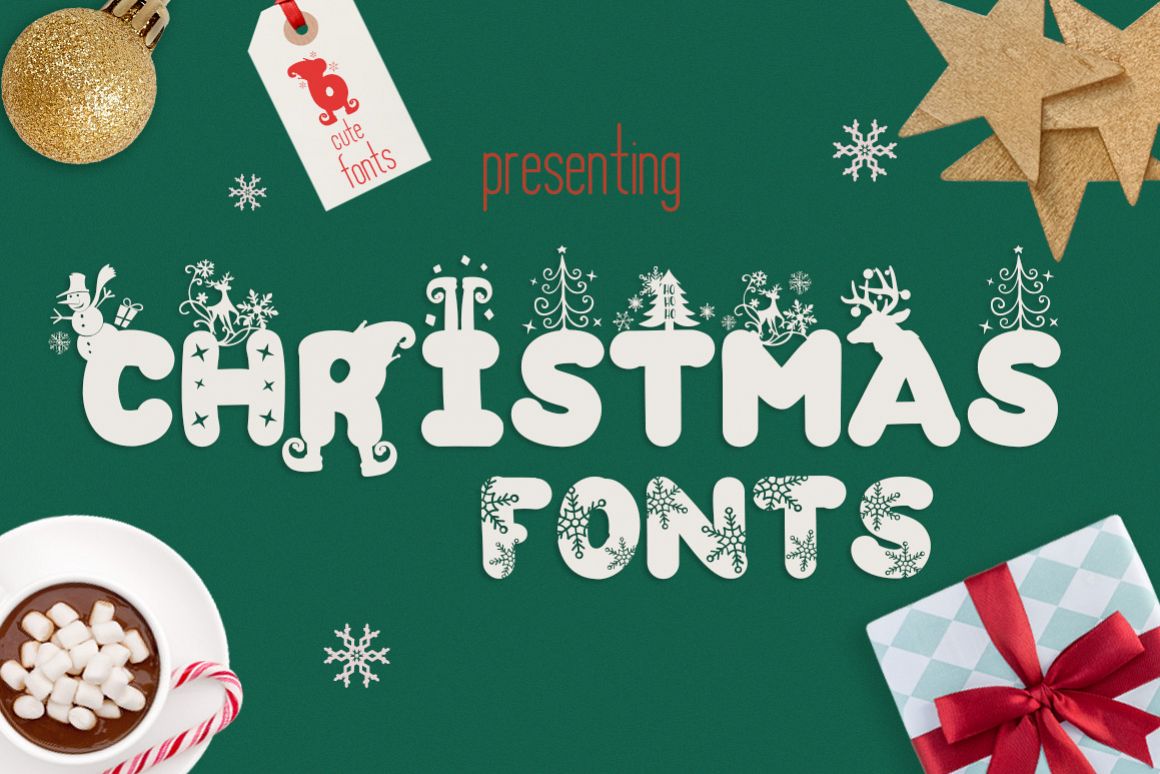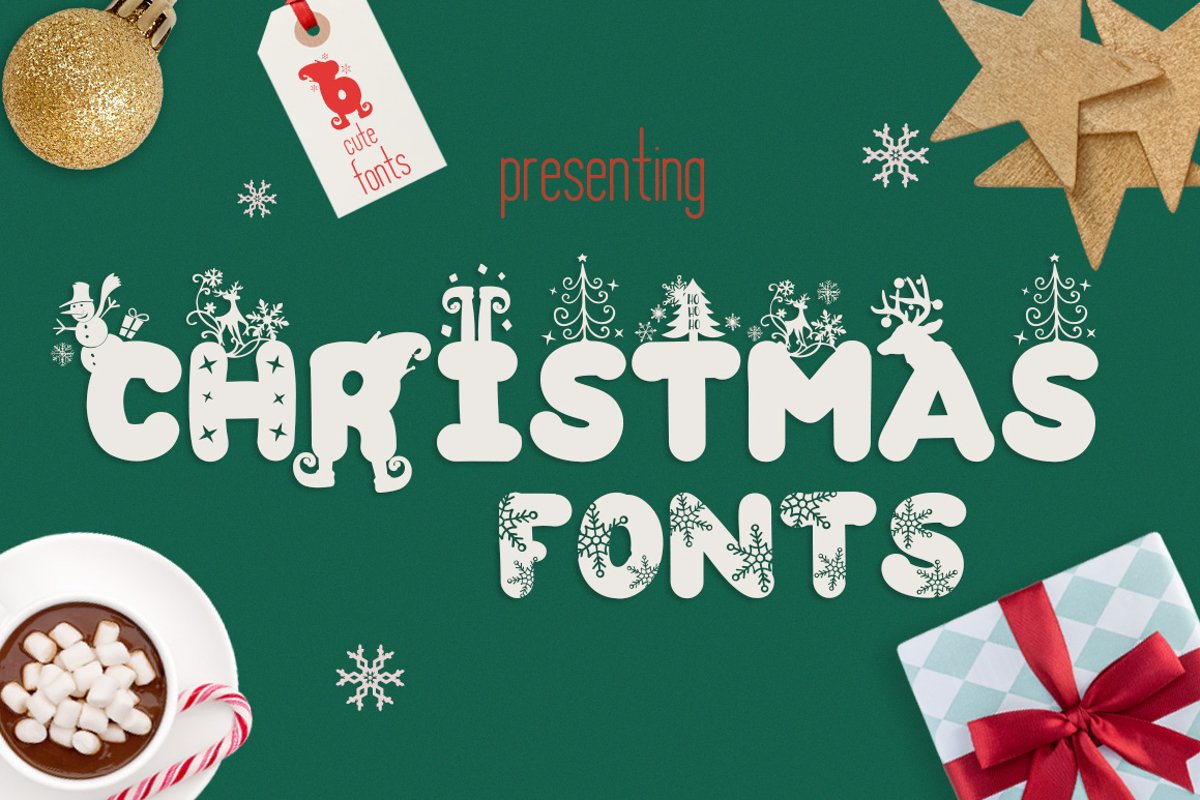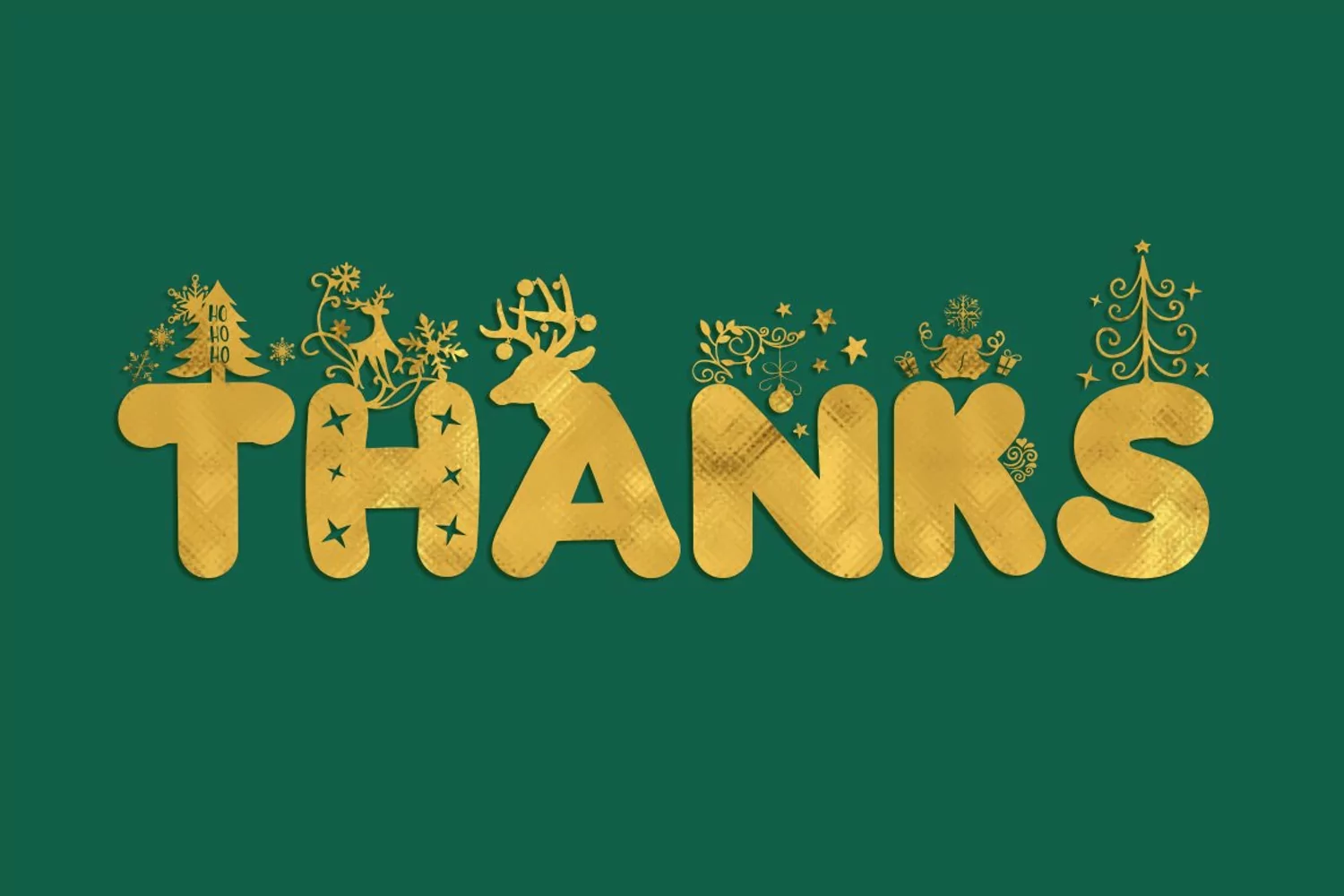
The Christmas Fonts Bundle with 6 Fonts & Bonus
In the download file you get 7 different fonts: Christmas Joy, Christmas Joy Fill, Christmas Snowflakes, Oh Deer Simple, Oh Deer Uppercase, Santa Cutie & Santa Cutie Regular.
These fonts are intended to be used as header fonts, ornamental fonts and for craft products!